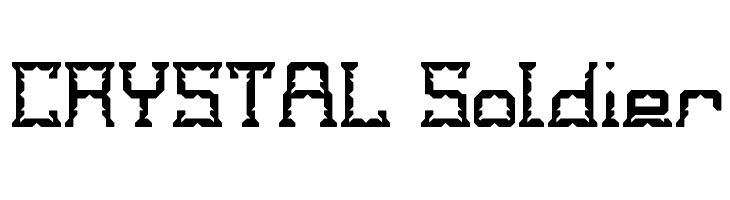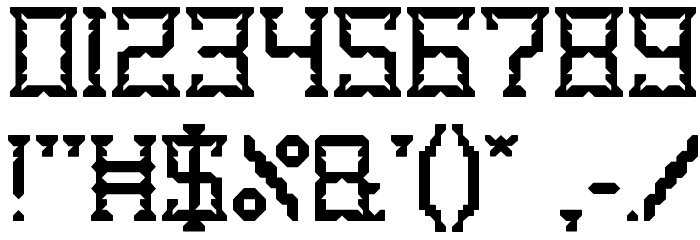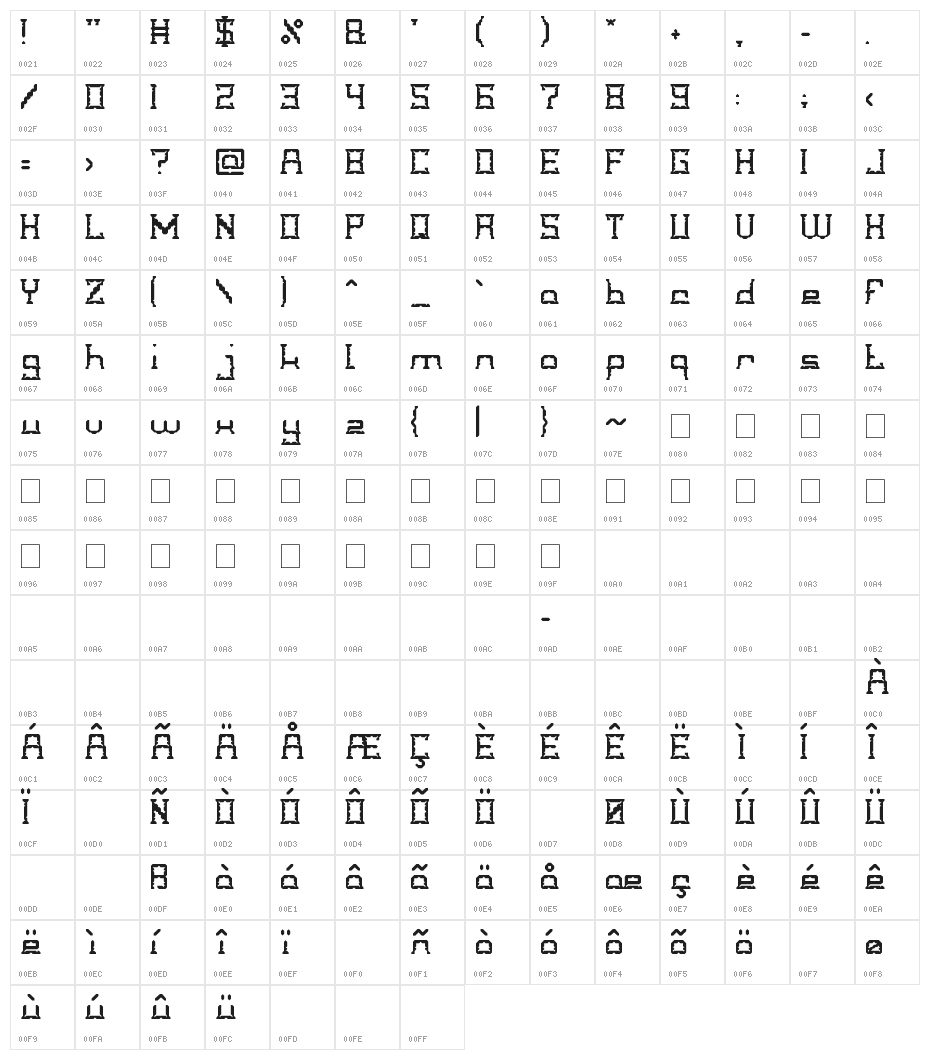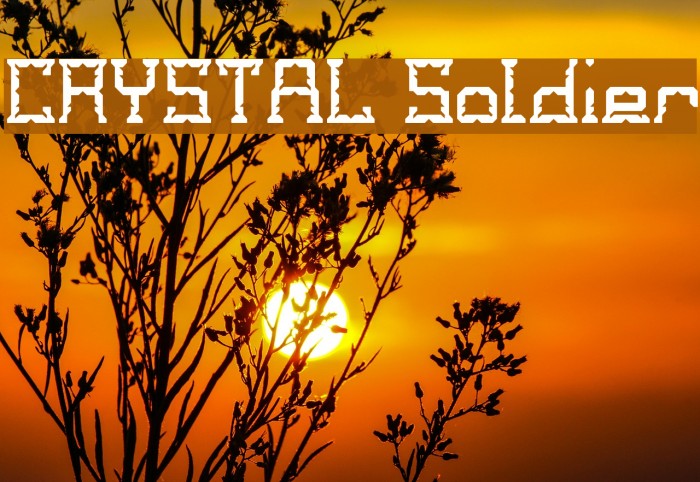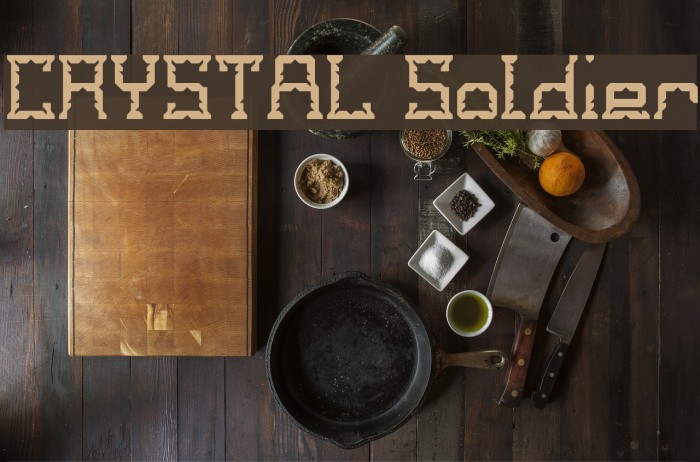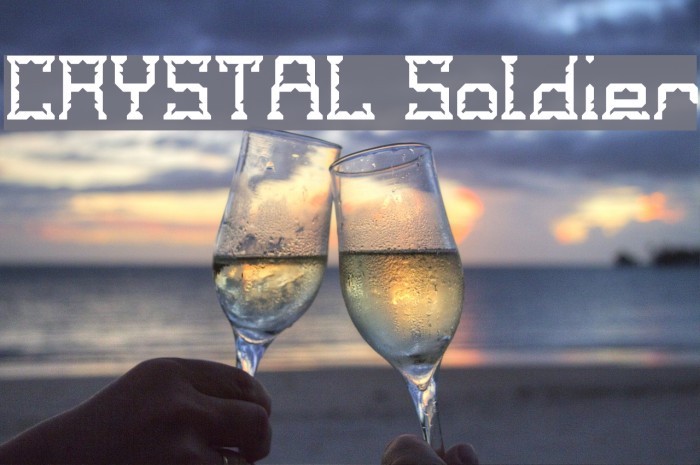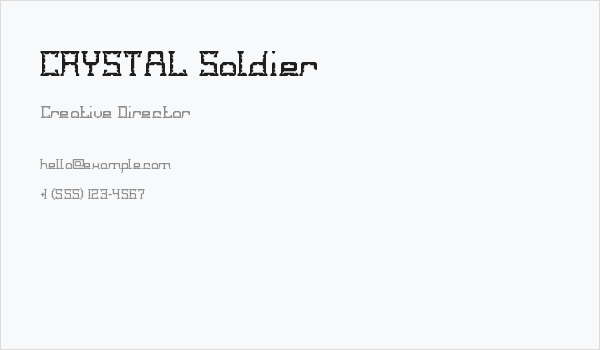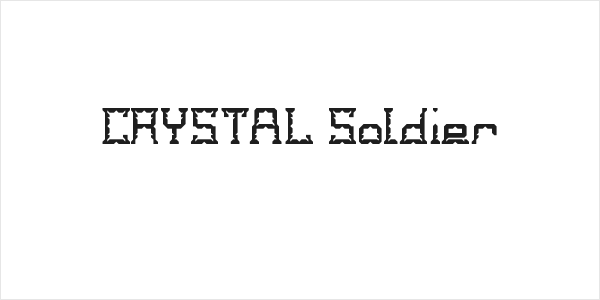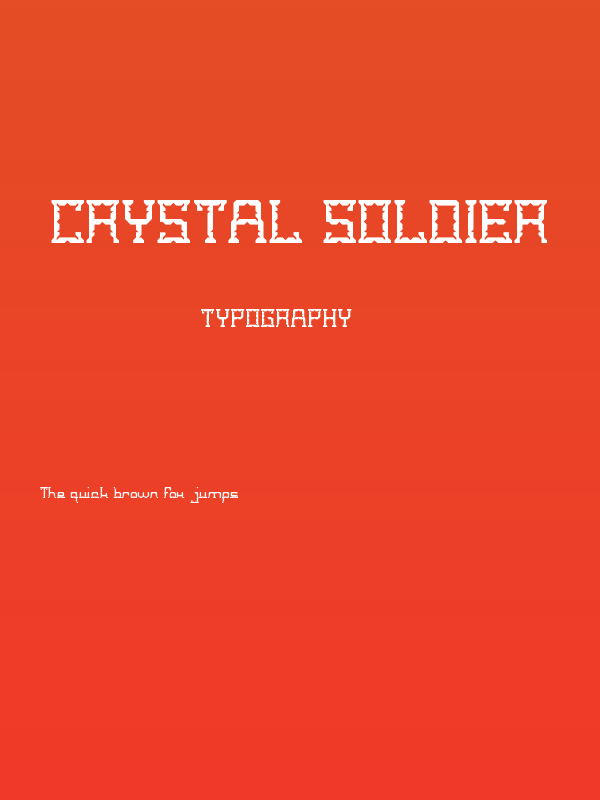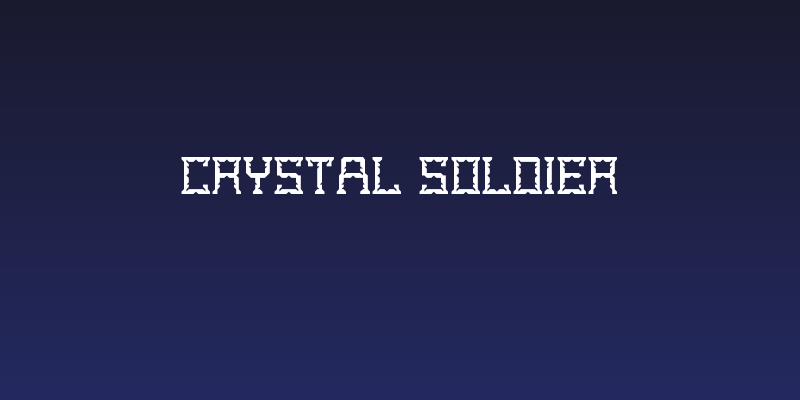
CRYSTAL Soldier Font
CRYSTAL Soldier Description
This font features a bold and angular design, characterized by sharp, jagged edges that give it a rugged and industrial appearance. The uppercase and lowercase letters maintain a consistent geometric style, with each character exhibiting a unique, crystalline texture. The numerals and special characters follow the same design principles, ensuring a cohesive look across all glyphs. The font's distinct style makes it stand out, with a strong visual impact that is both modern and edgy.